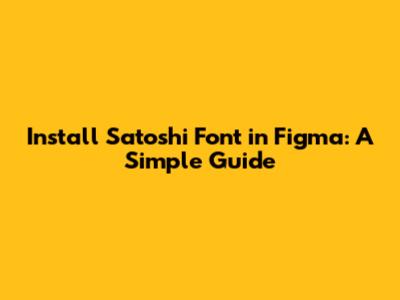
Why Use the Satoshi Font?
First off, why even bother with the Satoshi font? Good question! Satoshi is more than just a font; it's a design statement. It offers a unique blend of style and functionality that makes it a top choice for designers worldwide. It's a geometric sans-serif font designed by Deni Anggara, known for its modern and clean aesthetic. Its versatility makes it suitable for various applications, including website design, app interfaces, branding, and editorial layouts. The font's readability at different sizes makes it a great choice for both headlines and body text. The balanced design of Satoshi ensures that it looks good across various contexts. Also, Satoshi is highly legible, even at smaller sizes, which is super important for user interfaces and mobile design. It's also got a great personality, and is just plain cool, making it ideal for projects where you want to convey a sense of modernity and innovation. And did I mention it looks great?
The beauty of Satoshi lies in its simplicity. It's a font that doesn't try too hard, yet it stands out in a crowded design space. It is designed to be easily readable and works well for long-form content. If you're building a website or app, this can be a crucial factor in terms of user experience. Plus, it's a free font, meaning you can download and use it without any licensing restrictions. This is a significant advantage for designers who want to save money without compromising on quality. Satoshi is not just a font, it's an investment in your design toolkit. It is a fantastic font that can boost any project. Using Satoshi can make your designs feel professional and polished. It is a font that helps you tell a story. In a world full of design choices, choosing Satoshi is like making a statement about your taste and understanding of current design trends. It's a font that tells the world you care about detail and presentation. So, when you're looking for a font that is readable, stylish, and free, Satoshi is a fantastic option. Let's get it installed and get those designs looking sharp!